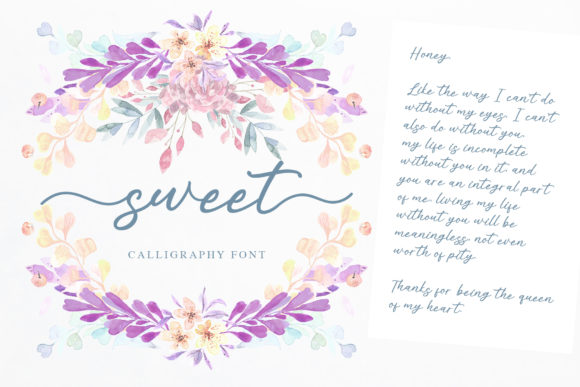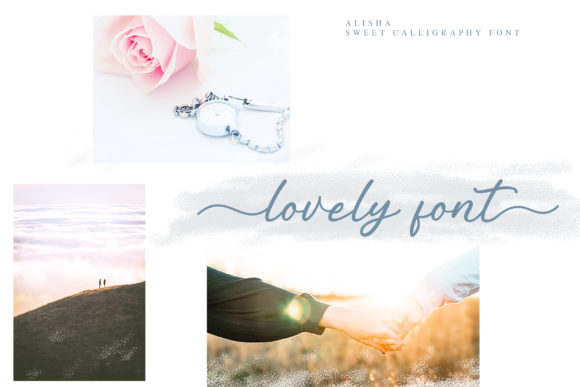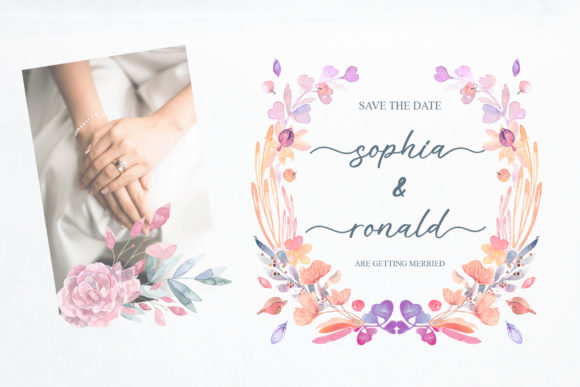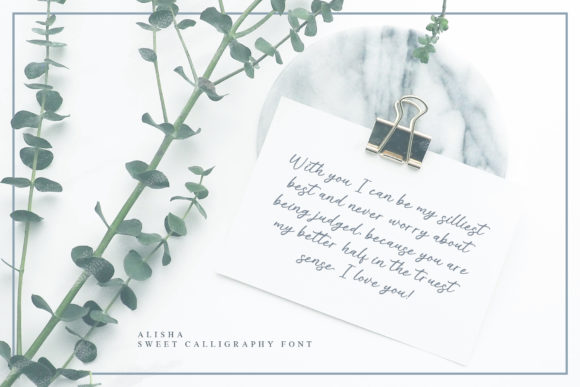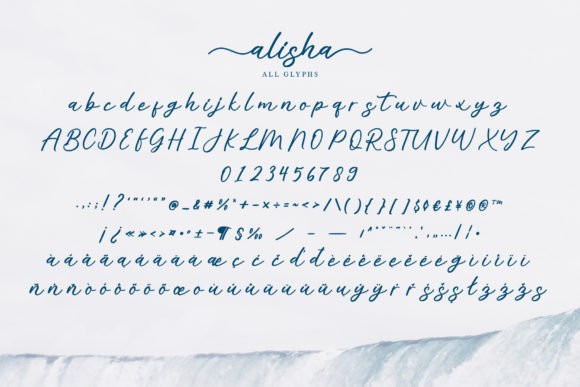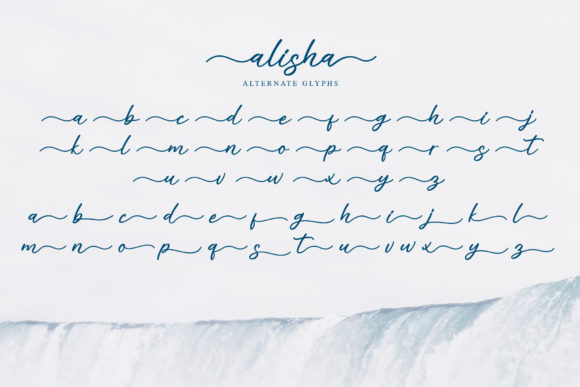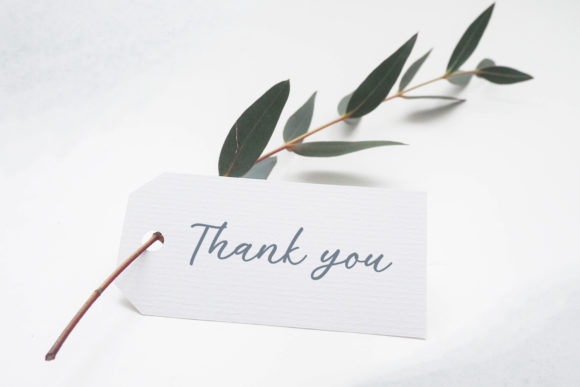
Alisha Font
About Alisha Font
Alisha is a delicious and sweet handwritten font with a bold and romantic twist. Fall in love with its unique and adorable charm, and turn any design project into a stand out.